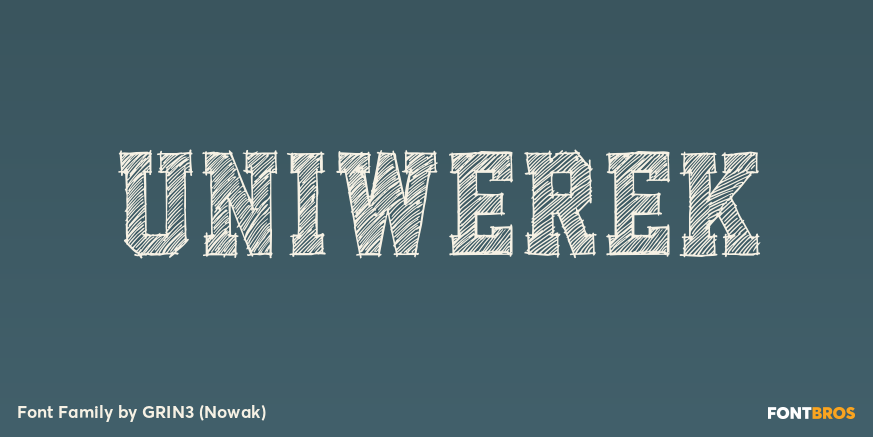
Uniwerek
About Uniwerek
Uniwerek is a hand drawn font, inspired by college and university sportswear. The Uniwerek font family consists of six fonts: Uniwerek, UniwerekBold, UniwerekBlack, UniwerekLight, UniwerekHollow, UniwerekStencil. UniwerekBlack and UniwerekLight can be…